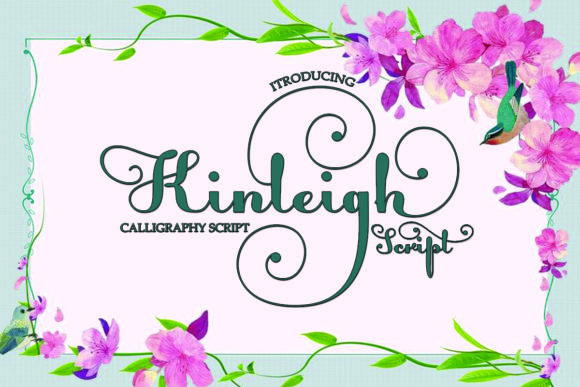
Kinleigh Font
**Introducing Kinleigh Font: The Enchanting Script for Your Unforgettable Moments**
Embark on a captivating calligraphic journey with Kinleigh, an exquisite script font that will transform your words into works of art. Its graceful curves and ethereal elegance will add a touch of timeless romance to your every creation.
Kinleigh is not just a font; it's a conduit for your emotions, a brush that paints the canvas of your dreams. Let its delicate strokes caress your wedding invitations, love letters, and cherished design projects, imbuing them with a charm that will captivate hearts.
Crafted by the renowned Shape Studio, Kinleigh is a testament to meticulous artistry. Its PUA encoding grants you effortless access to a treasure trove of glyphs and swashes, unlocking infinite possibilities for customization. Whether you seek to adorn your wedding album cover with an ethereal touch or create heartfelt love notes that whisper sweet nothings, Kinleigh is your perfect companion.
Indulge in the world of Kinleigh, where every letter dances with grace and every word becomes a symphony of elegance. Let its captivating charm weave its magic into your creations, leaving an everlasting impression on all who behold it. Experience the transformative power of Kinleigh today!